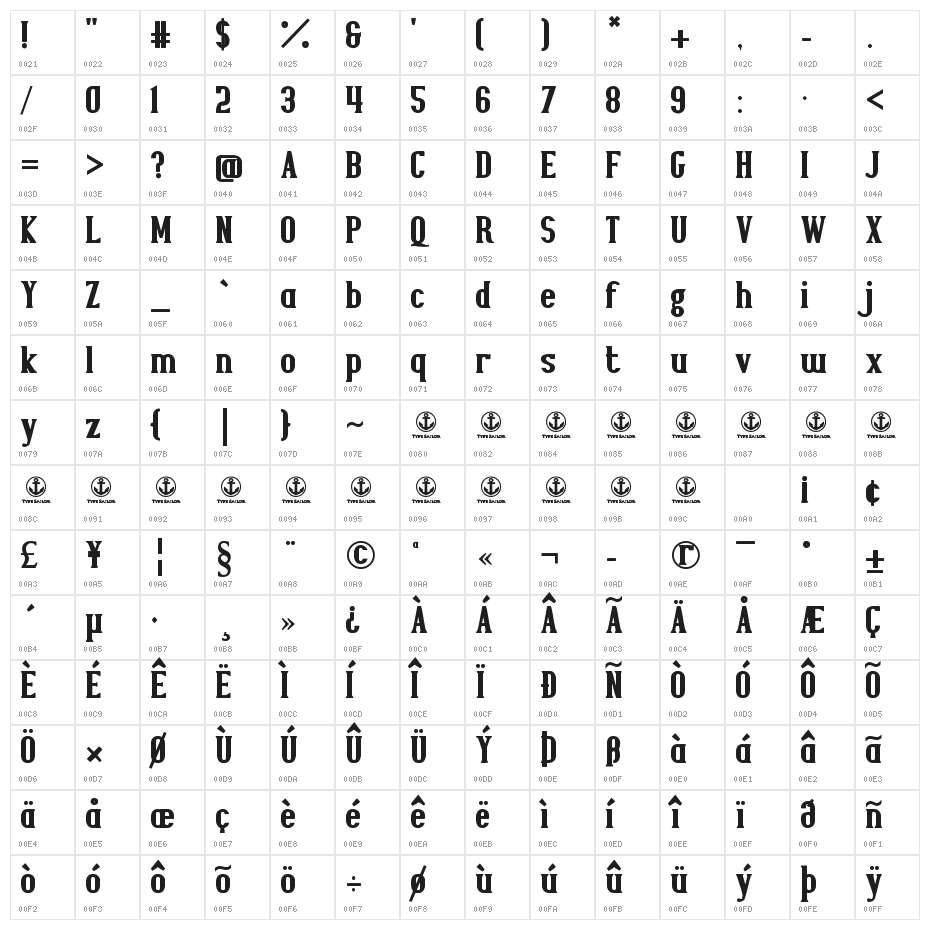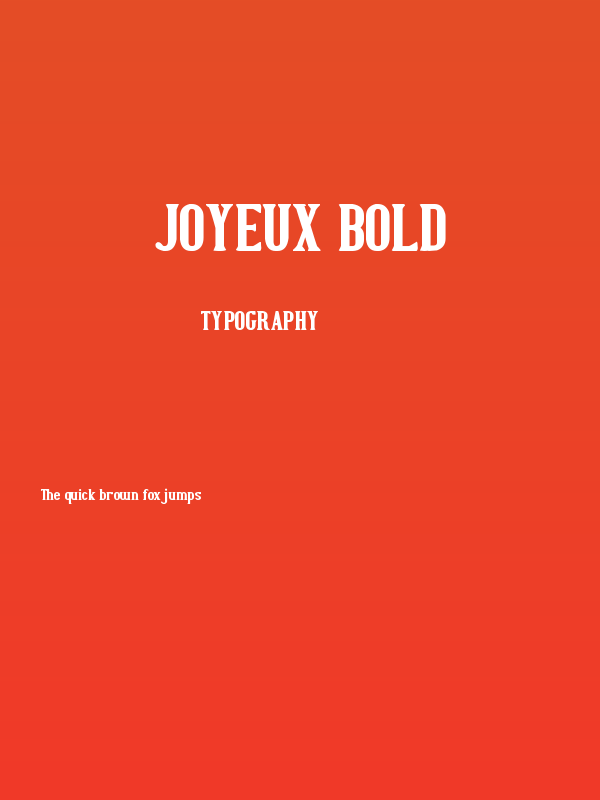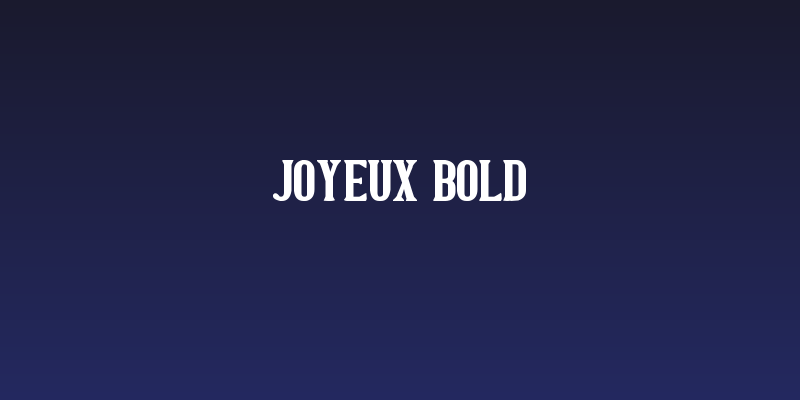
Joyeux Bold Font
Joyeux Bold Description
This bold typeface features strong, thick strokes with a distinct vintage flair. The uppercase letters are robust and commanding, while the lowercase letters maintain a consistent weight, providing a harmonious balance. The numerals are equally bold, ensuring clarity and readability. Special characters are designed with the same boldness, making them stand out effectively. The overall design is reminiscent of classic serif fonts but with a modern twist, making it suitable for a variety of creative projects.
Overall StyleVintage
Proposed ProjectsIdeal for branding, poster design, headlines, and any project requiring a bold, vintage aesthetic.